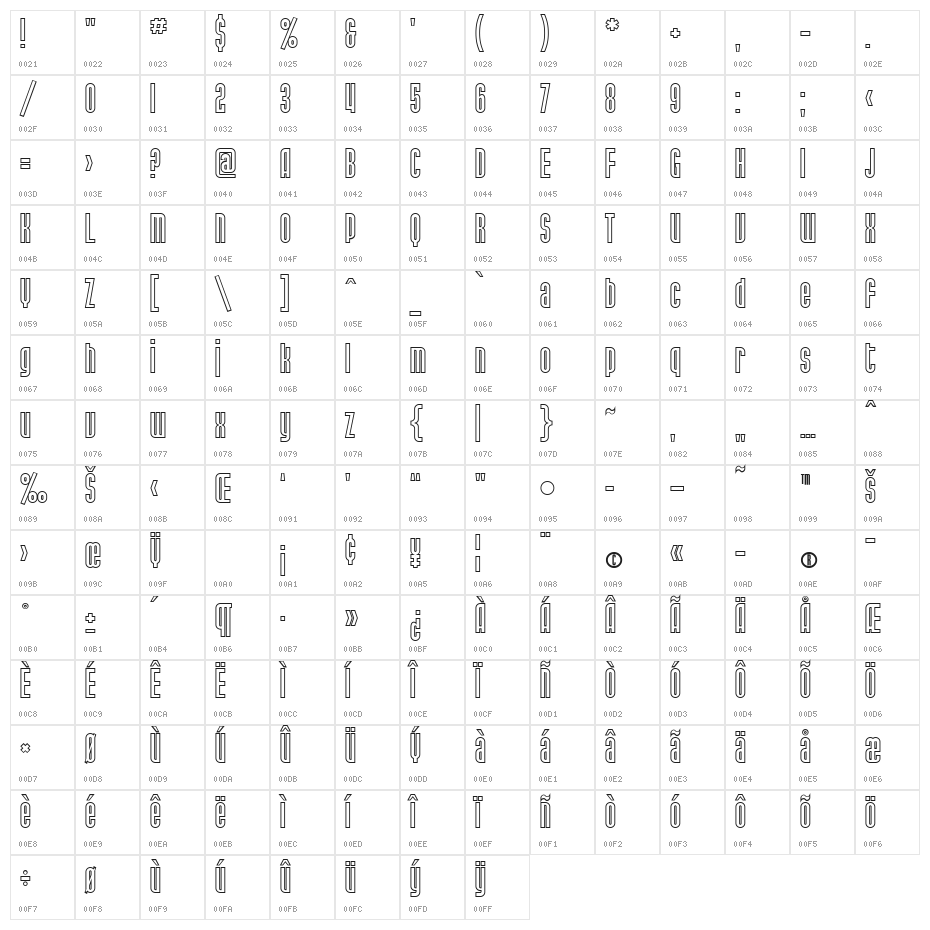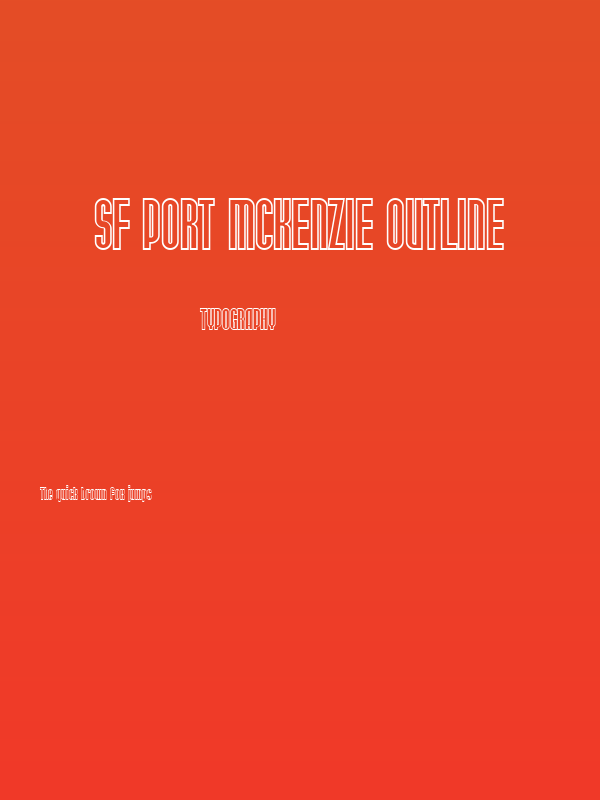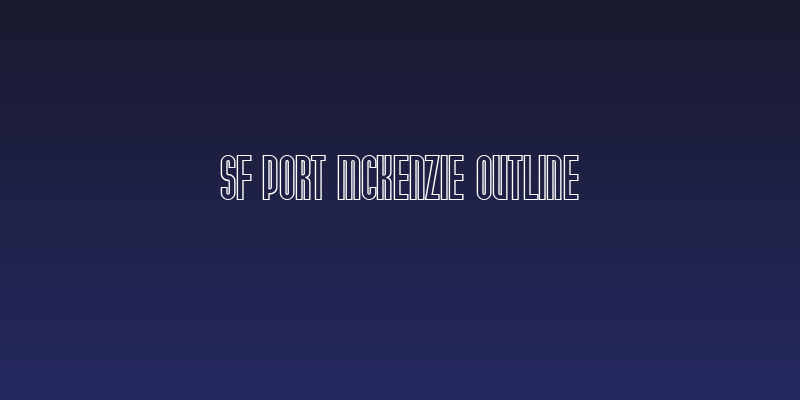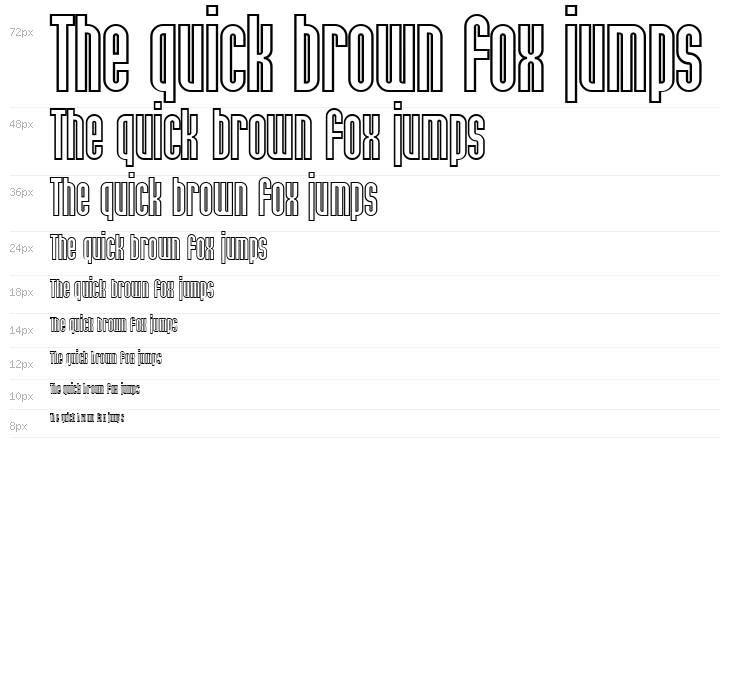
SF Port McKenzie Outline Font
SF Port McKenzie Outline Description
This font features a bold, outlined style with a modern and geometric appearance. The characters are tall and narrow, giving a condensed look. The outlines are consistent in thickness, providing a uniform and structured feel. The uppercase and lowercase letters maintain a similar height, enhancing the cohesive design. The numerals and special characters follow the same outlined pattern, ensuring visual harmony across all glyphs. This font's distinct outline makes it stand out, suitable for eye-catching designs.
| Proposed Projects | Ideal for posters, headlines, logos, and branding materials where a striking and modern look is desired. |